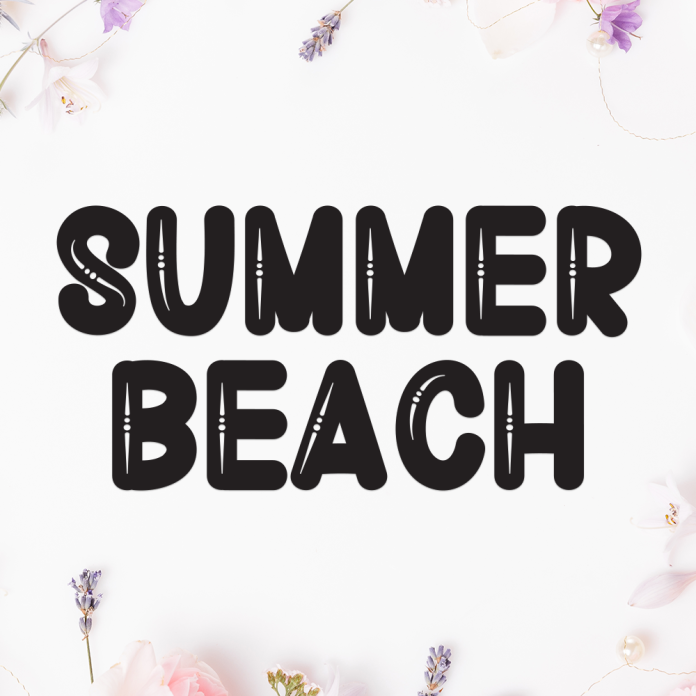
Summer Beach is a bold and cheerful display font that captures the carefree vibes of sunny days, ocean waves, and beachside adventures. With playful curves and a lively personality, this font is perfect for summer-themed projects that need a splash of fun.
Ideal for vacation posters, beach party invitations, summer merch, travel branding, and social media graphics, Summer Beach brings the joy of a tropical escape to your designs.
Bright and fun display style
Bold, rounded letterforms with a tropical touch
Great for summer events, beachwear branding, and travel themes
Dive into creativity with Summer Beach, the display font that brings the sun, surf, and smiles.